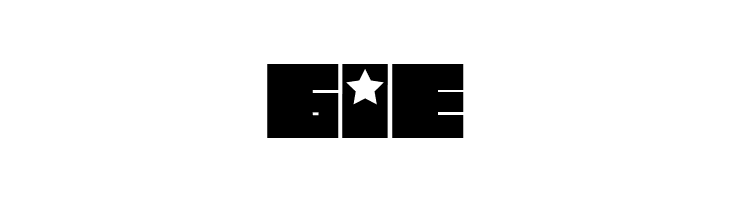
( Vladimir Nikolic - www.coroflot.com/vladimirnikolic )
A bold, geometric font with a modern, industrial style and decorative elements.
( Vladimir Nikolic - www.coroflot.com/vladimirnikolic )
A bold, italicized grunge font with a rugged, textured appearance.
( Vladimir Nikolic - www.coroflot.com/vladimirnikolic )
A bold, grunge-textured font with a strong, blocky design.
( Vladimir Nikolic - www.coroflot.com/vladimirnikolic )
A bold, geometric font with a shadow effect and decorative elements.
( Vladimir Nikolic - www.coroflot.com/vladimirnikolic )
A bold, italic font with dynamic, blocky characters and decorative elements.
( Vladimir Nikolic - www.coroflot.com/vladimirnikolic )
A bold, grunge-style italic font with a distressed texture and decorative elements.
( Vladimir Nikolic - www.coroflot.com/vladimirnikolic )
A bold, italic font with a geometric, decorative style ideal for impactful headlines.
( Vladimir Nikolic - www.coroflot.com/vladimirnikolic )
Bold, shadowed, italic font with decorative elements and a dynamic style.
Recent favorites include Russiano Regular, Russiano Grunged Italic, Russiano Thin Italic, Russiano Grunged Regular and Russian Spring Shadow Regular. They balance clarity and personality, working well for tech brands, editorial layouts, and social visuals.